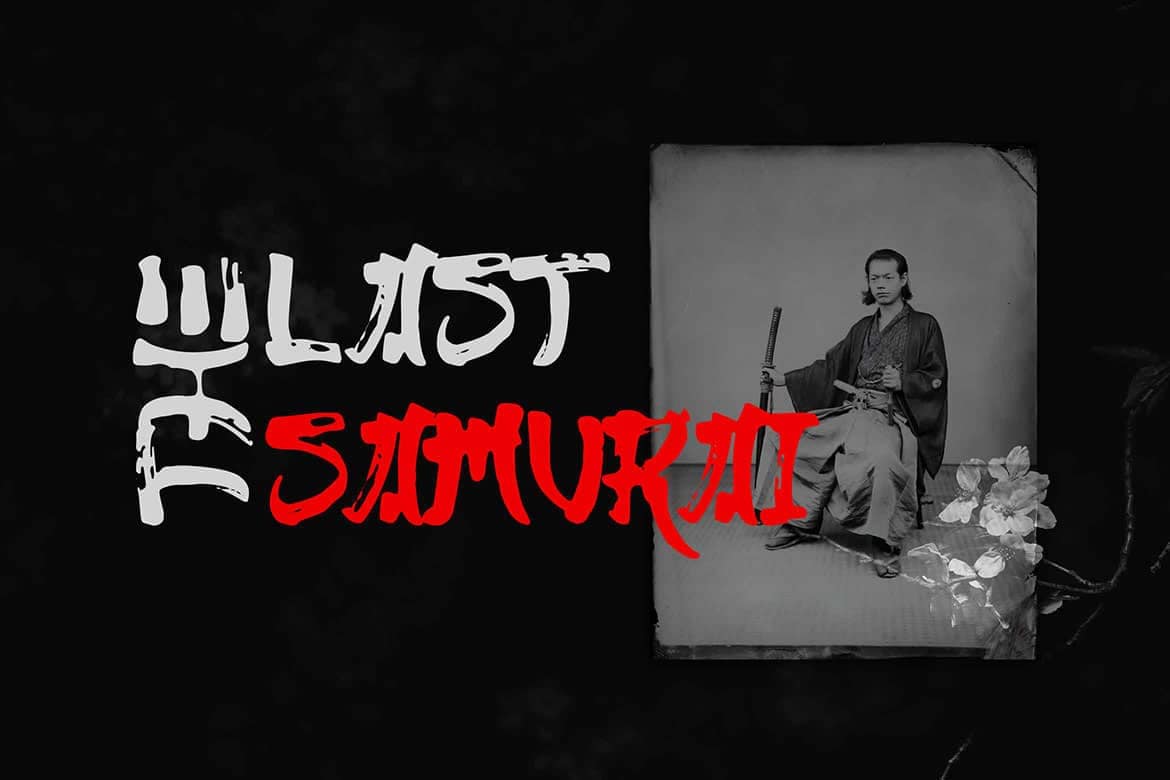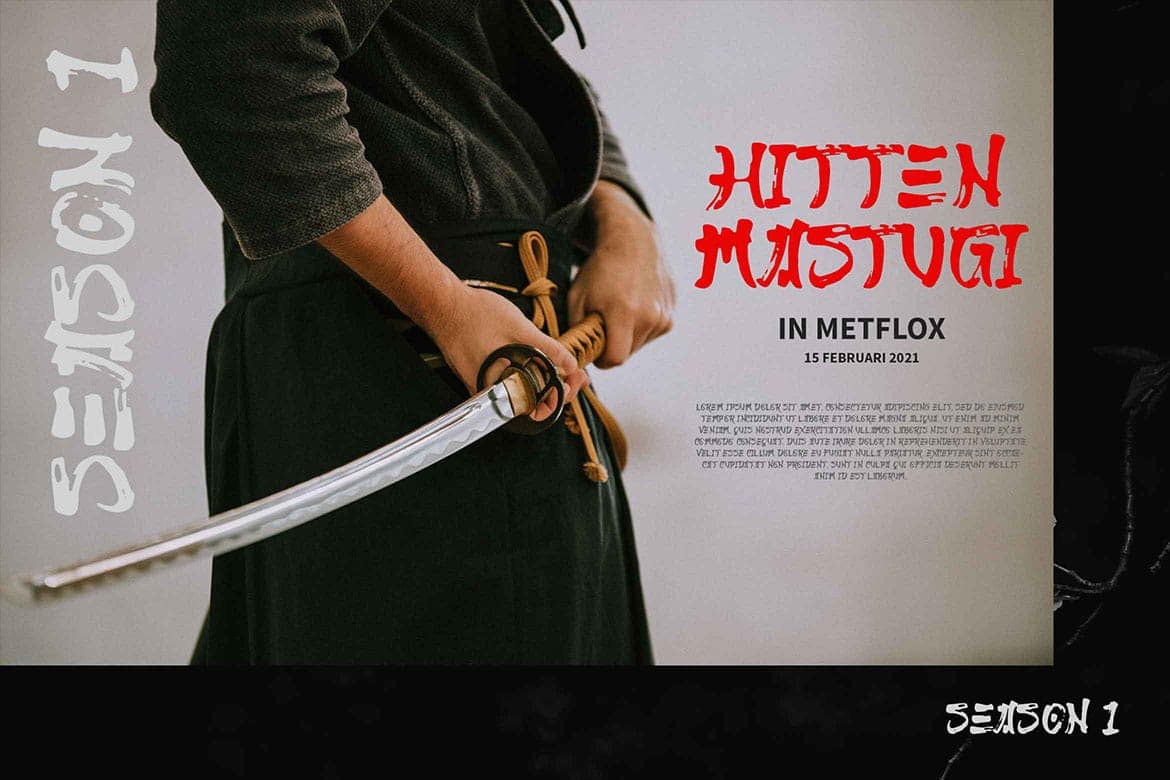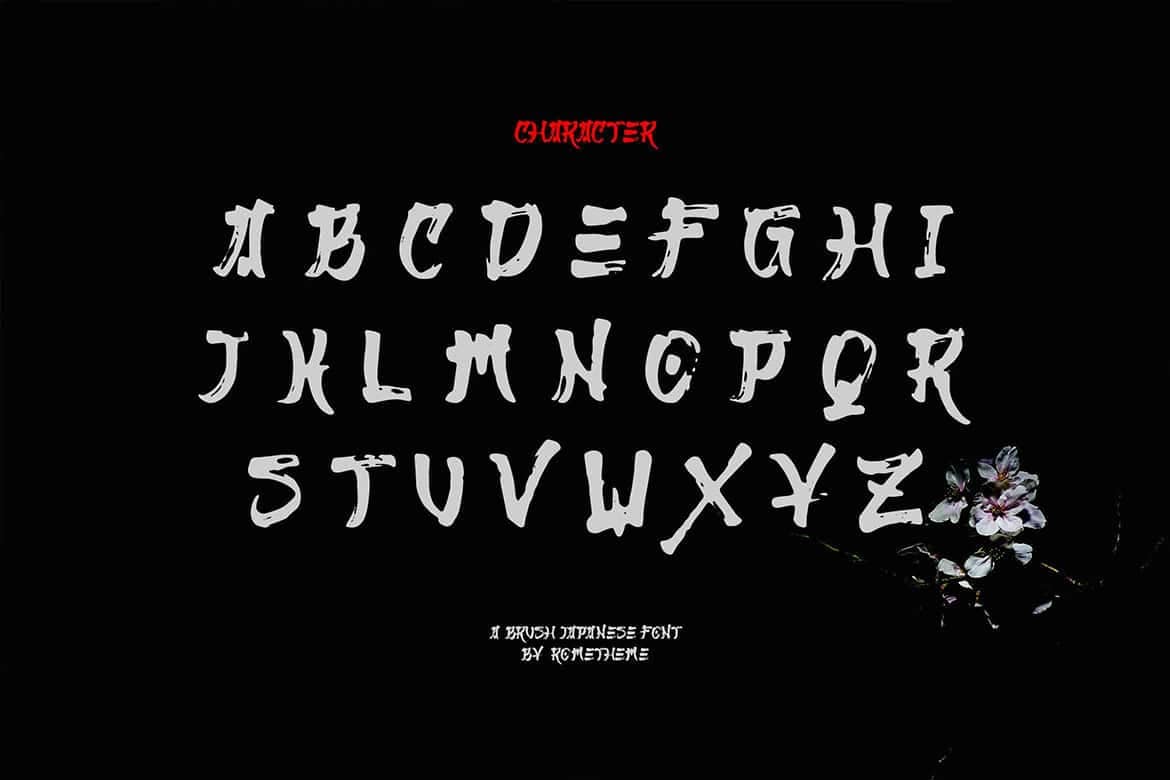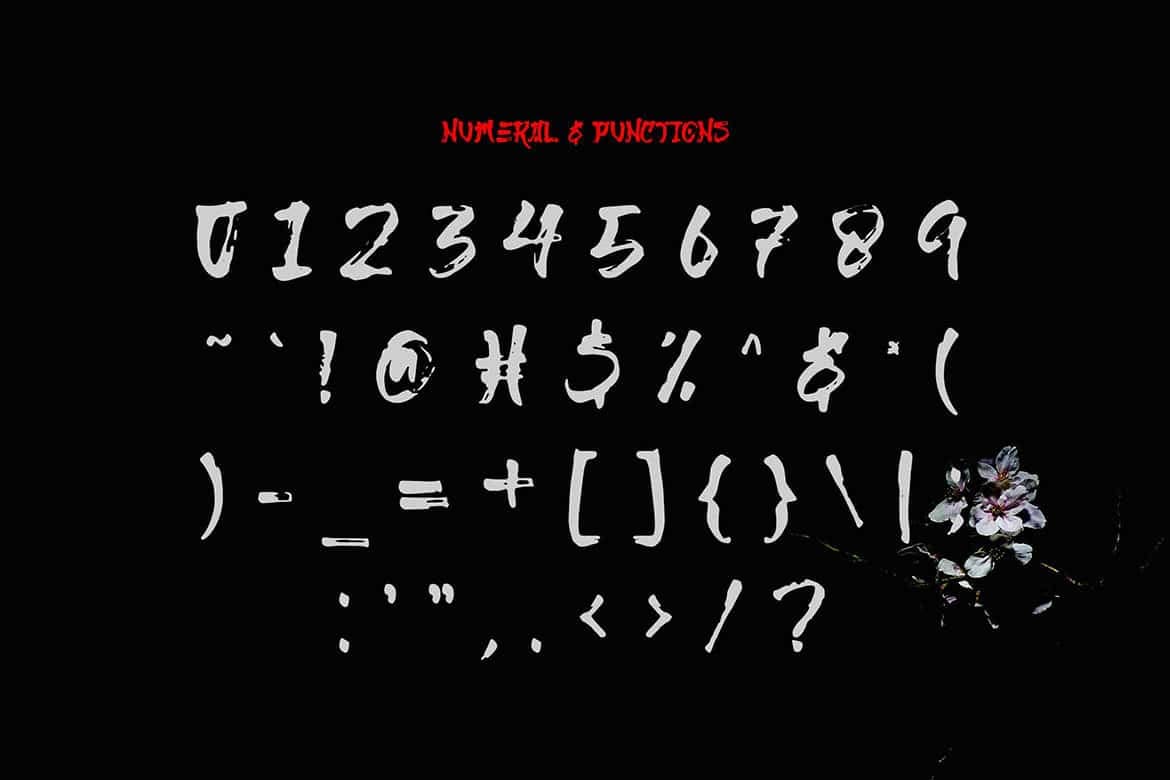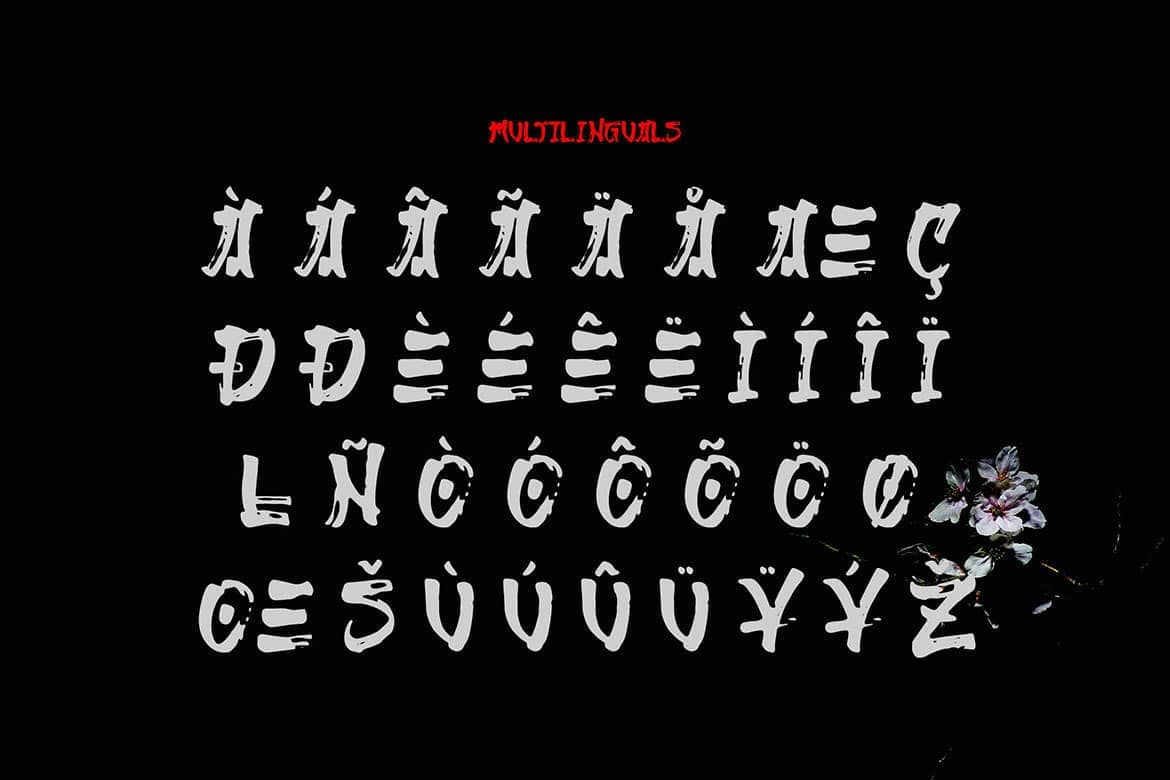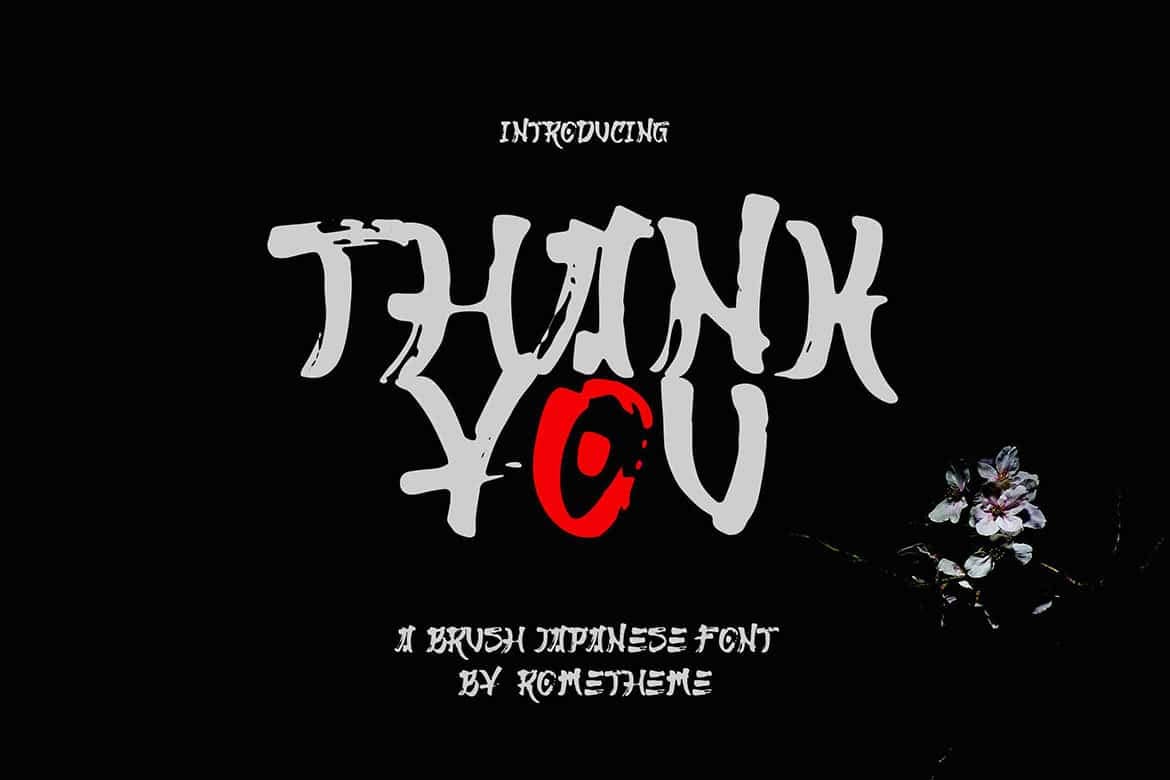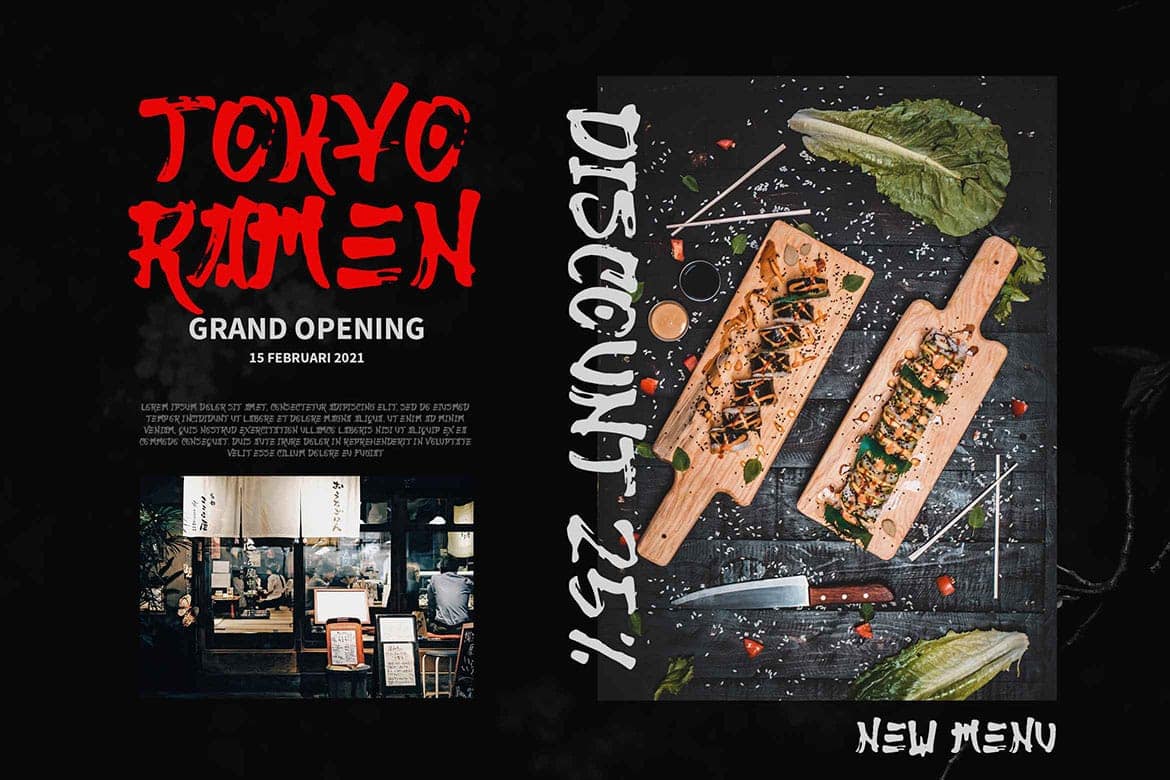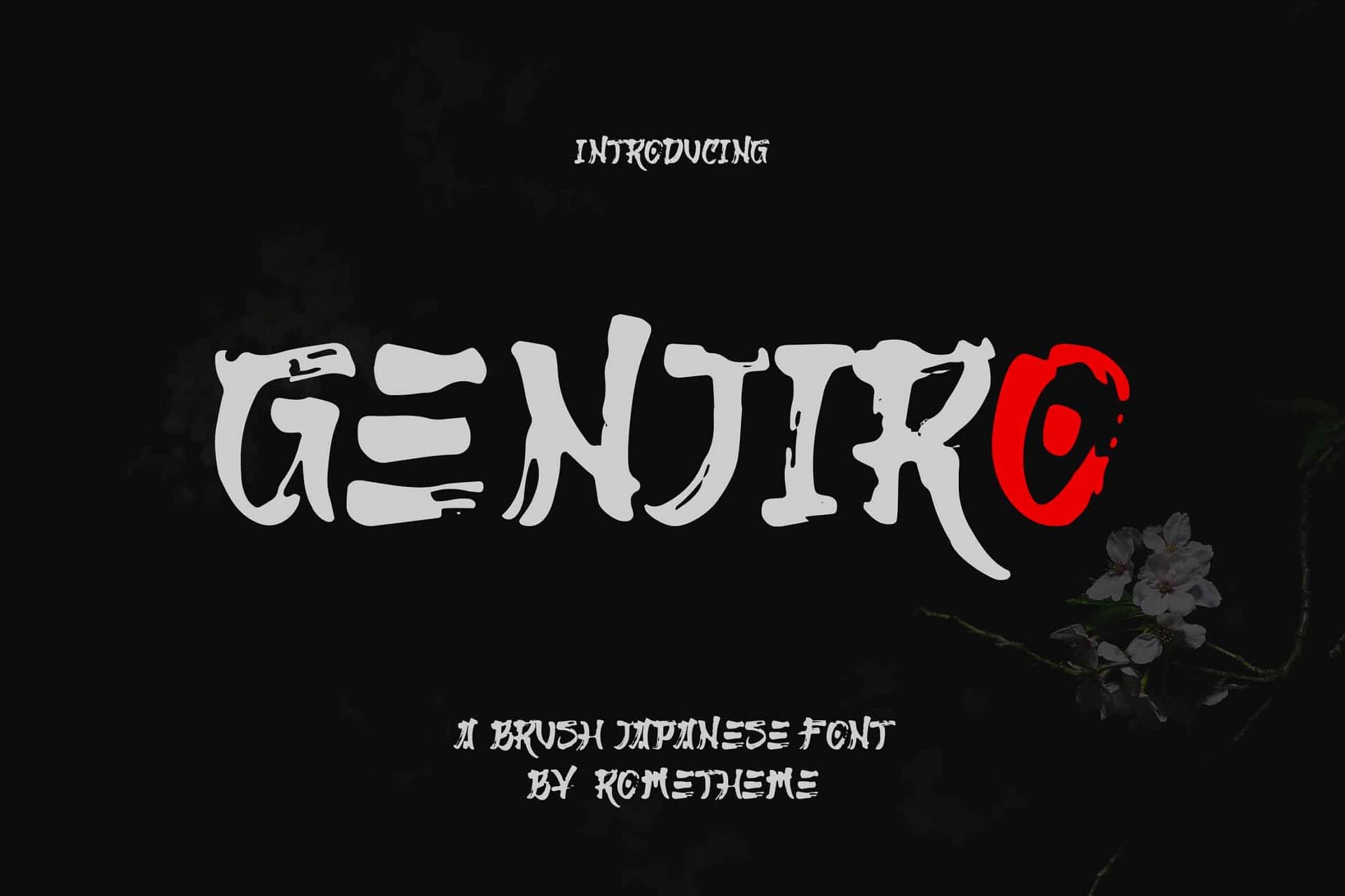
Genjiro is japanese brush font.  Great font for fashion, apparel projects, signature, album cover, logo, branding, magazine, social media, & advertisements, but also works great for other projects.
• Basic Latin A-Z and a-z
• Numbers
Genjiro - Japanese Font